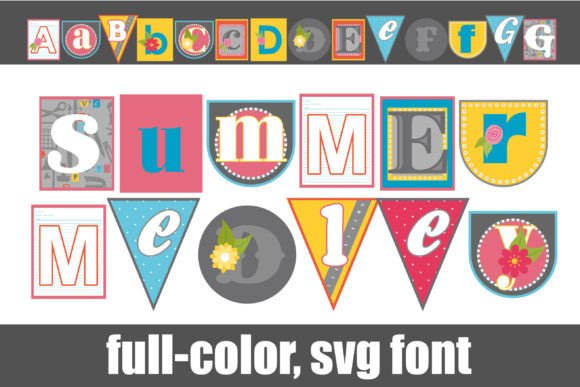
Unleash the vibrant energy of summer with Summer Medley Font – an exuberant display of colors and styles in a single font package. This striking collection of pennants, each uniquely designed and bursting with summer hues, will transform your designs into captivating visual masterpieces. Embark on a creative journey where boundless imagination meets captivating aesthetics.
Immerse yourself in a kaleidoscope of colors as you explore the possibilities of Summer Medley Font. With its dynamic range of hues and playful variations, this font family ignites creativity and breathes life into your projects. Create eye-catching logos and branding that leave a lasting impression, or wrap your web designs and printed materials in a vibrant embrace of color.
Express your individuality and make a bold statement with every design element. Experiment with the font's alternate case feature, revealing a treasure trove of additional colors accessible through your system's character map. Unleash your artistic vision and let your imagination run wild as you mix and match colors, creating harmonious or contrasting palettes that resonate with your unique style.
Experience the versatility of Summer Medley Font, a font family that adapts seamlessly to diverse design projects. Whether you're crafting logos, branding elements, web designs, or print materials, this font collection delivers exceptional results. Its scalability ensures impeccable quality at any size, maintaining its sharp details and vivid colors even when enlarged or reduced.
Step into a world where creativity knows no bounds, where your designs come alive with the radiant energy of Summer Medley Font. Embrace the beauty of full-color SVG fonts, a technology that brings your designs to life with a symphony of colors and styles. Join the ranks of top designers who harness the power of SVG fonts to create captivating visuals that captivate audiences and leave a lasting impact.
Welcome to the realm of Summer Medley Font, where imagination thrives and designs flourish. Let your creativity soar as you explore the endless possibilities this font family offers. Dive into the vibrant hues, revel in the versatility, and unleash your artistic vision like never before. Transform your designs into vibrant expressions of your creativity, leaving an indelible mark on the world of design.